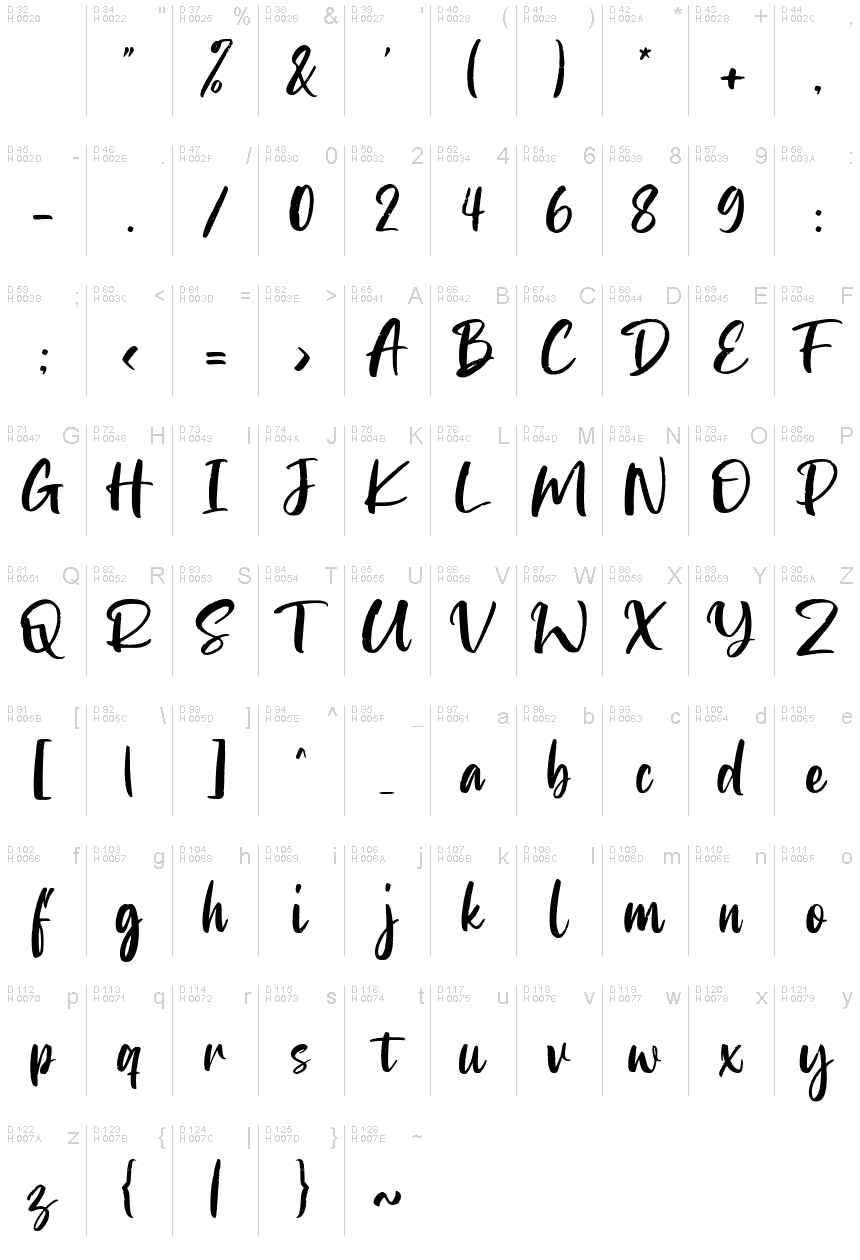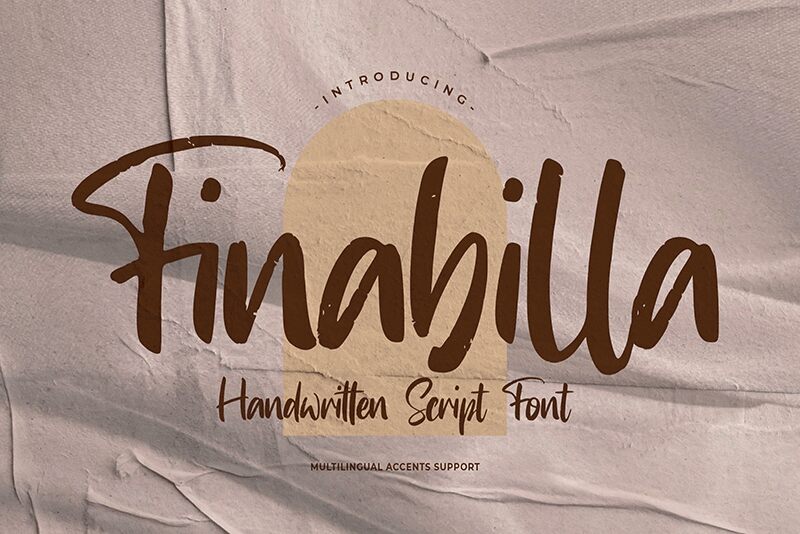
Finabilla
Finabilla, a creation of Gassstype, embodies the charm of handwritten artistry with its semi-condensed style. This font evokes the intimate touch of ink on paper, bringing personality and warmth to digital canvases. The fluidity of Finabilla's strokes captures the spontaneity of penmanship while maintaining a harmony that is visually pleasing, making it an excellent choice for designers looking to inject a humanistic feel into their projects.
Its aesthetic is defined by an effortless elegance that stands out in branding, packaging, and editorial designs. Beyond its visual appeal, Finabilla's legibility ensures that its unique character enhances rather than overpowers the message it carries. Whether used in a sophisticated logo or as part of an engaging narrative in print or online media, Finabilla promises to deliver distinction and flair across various creative landscapes.